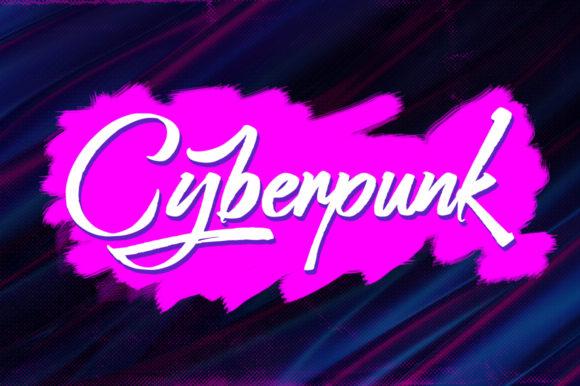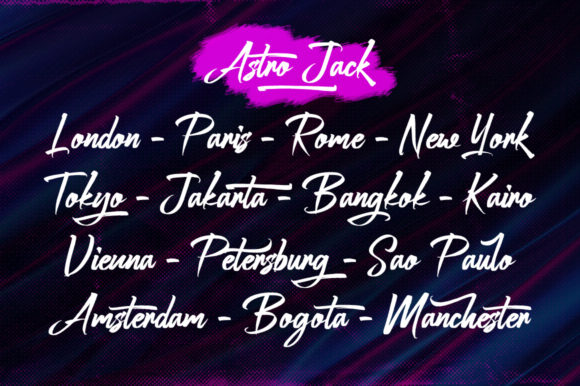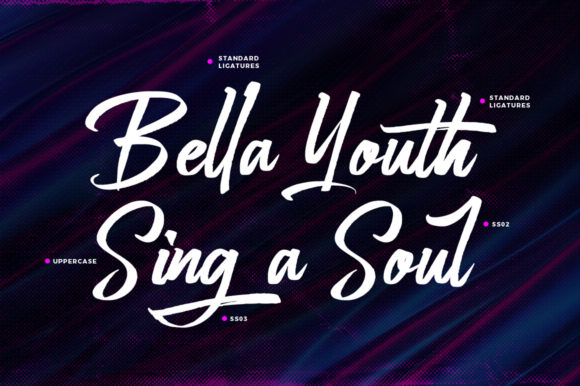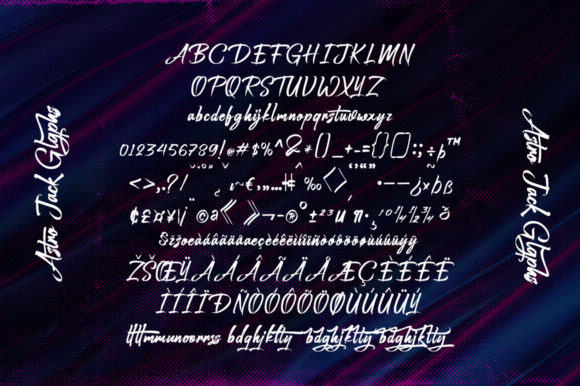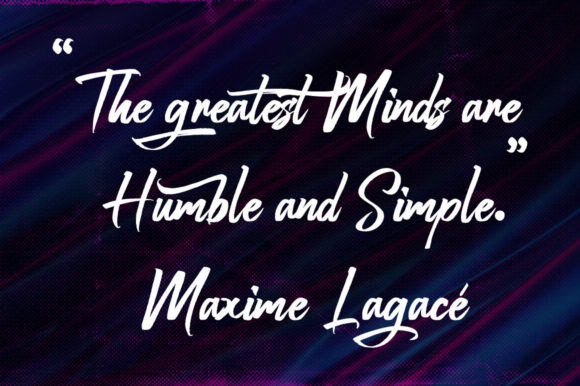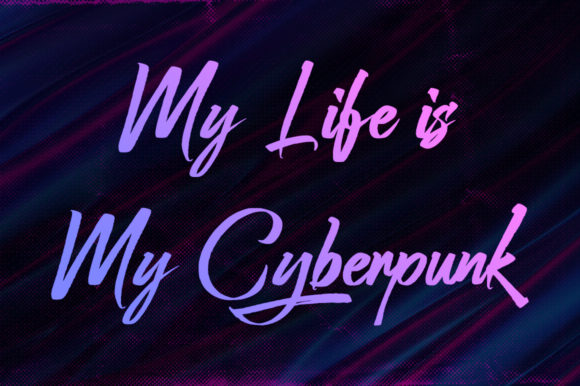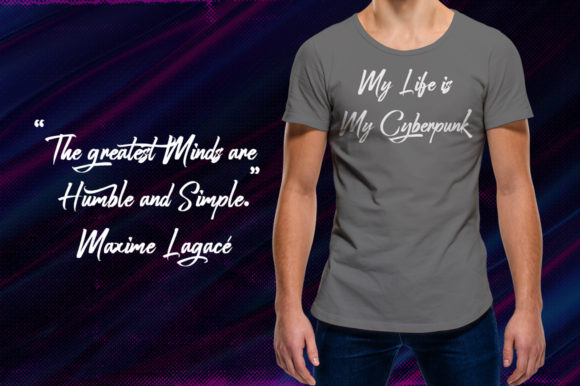
Astro Jack Font
About Astro Jack Font
Astro Jack is a flowing handwritten font, described by an elegant touch, perfect for your favorite projects. Fall in love with its incredibly distinct and timeless style and use it to create spectacular designs!